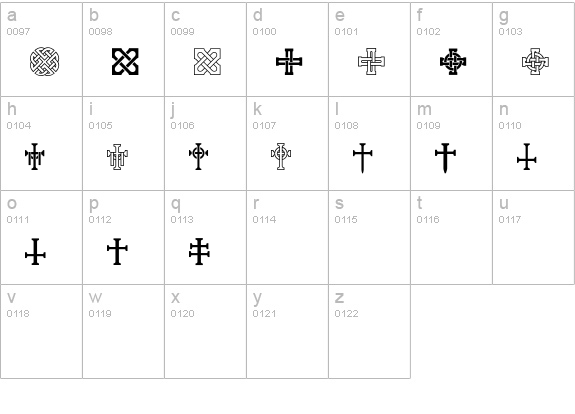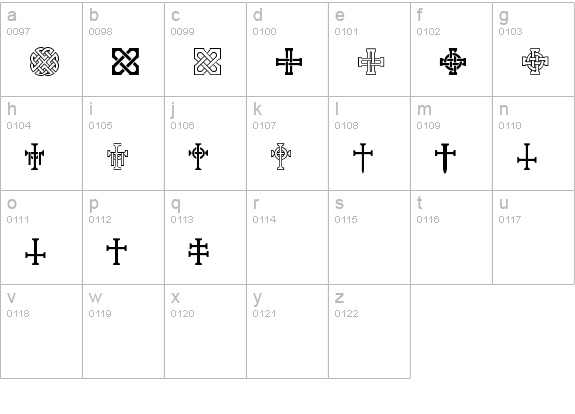
OssianEF-Ornaments Font Details
OssianEF-Ornaments font is a stunning collection of intricate and elegant ornamental designs that will add a touch of sophistication to any project. This versatile font features a variety of decorative elements including swirls, flourishes, and geometric patterns that can be used to enhance logos, invitations, and other creative projects. The beauty of OssianEF-Ornaments font lies in its intricate details and timeless appeal, making it a must-have for designers looking to elevate their work to the next level. Whether you're working on a wedding invitation, a branding project, or a special event poster, this font will bring a touch of elegance and sophistication to your designs. Best of all, OssianEF-Ornaments font is available for free download at FontsMarket.com, making it easily accessible to designers of all skill levels. Don't miss out on the opportunity to add this stunning font to your collection and take your designs to new heights. Download OssianEF-Ornaments font today and let your creativity shine!